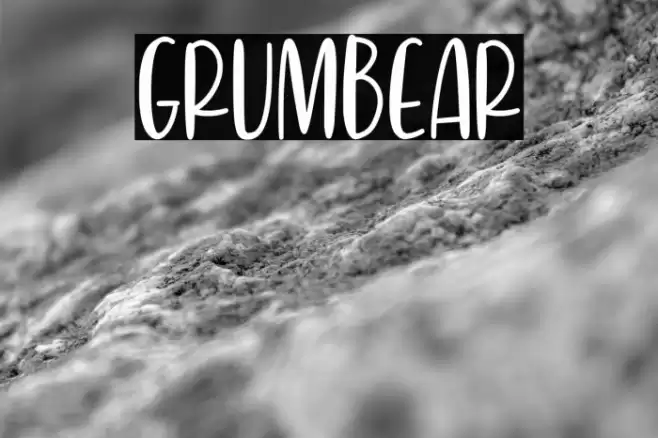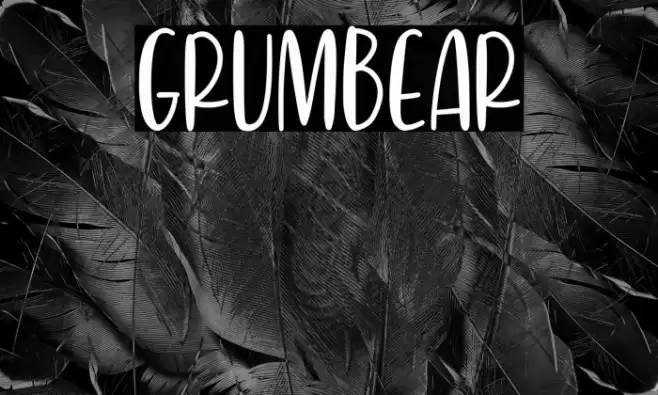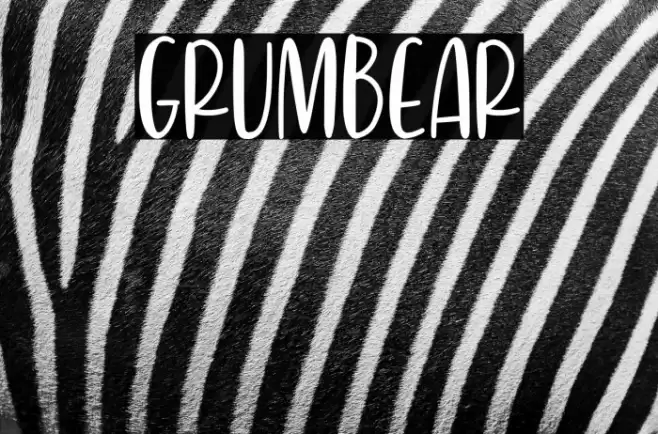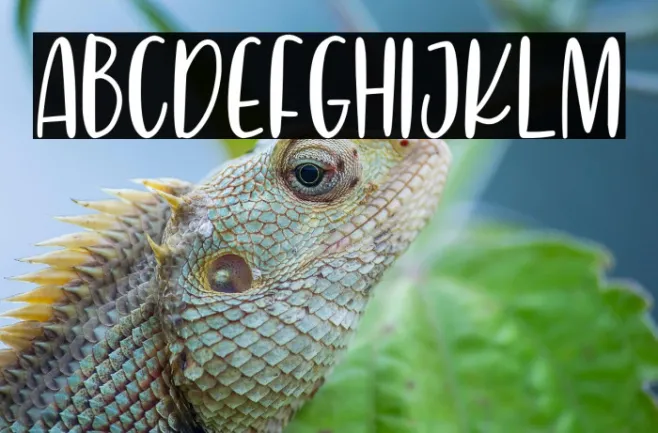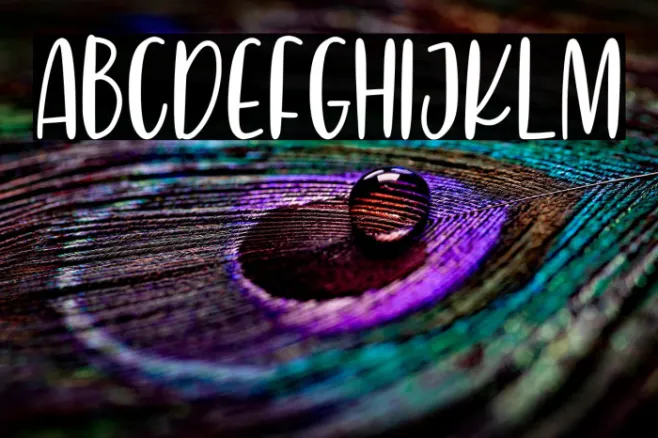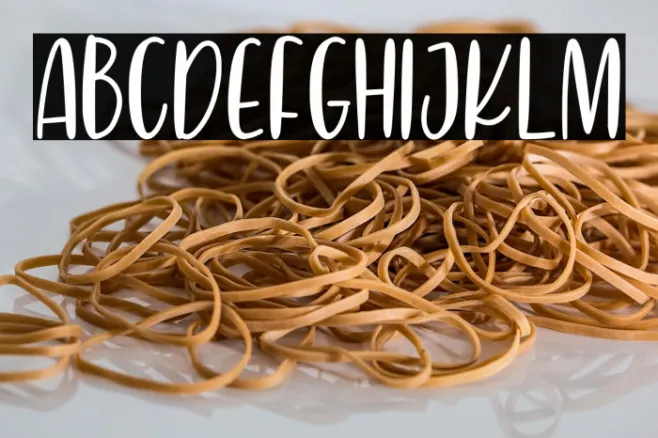
Grumbear Font
Grumbear Description
This font features a playful and energetic script style with a handwritten feel. The characters are bold and slightly condensed, offering a lively and dynamic appearance. The uppercase letters are tall and narrow, while the lowercase letters maintain a consistent flow with rounded edges. The numbers are well-integrated, matching the overall style with a touch of whimsy. Special characters are creatively designed, adding to the font's unique personality. This font is perfect for projects that require a fun and informal touch, such as invitations, posters, or branding materials.
A playful, handwritten script font with bold, slightly condensed characters from Regular fonts.
- Proposed Projects: Ideal for invitations, posters, branding, and any project needing a lively, informal touch.
- Overall Style: Playful, Energetic
- Use Case: Headlines, Logos, Invitations